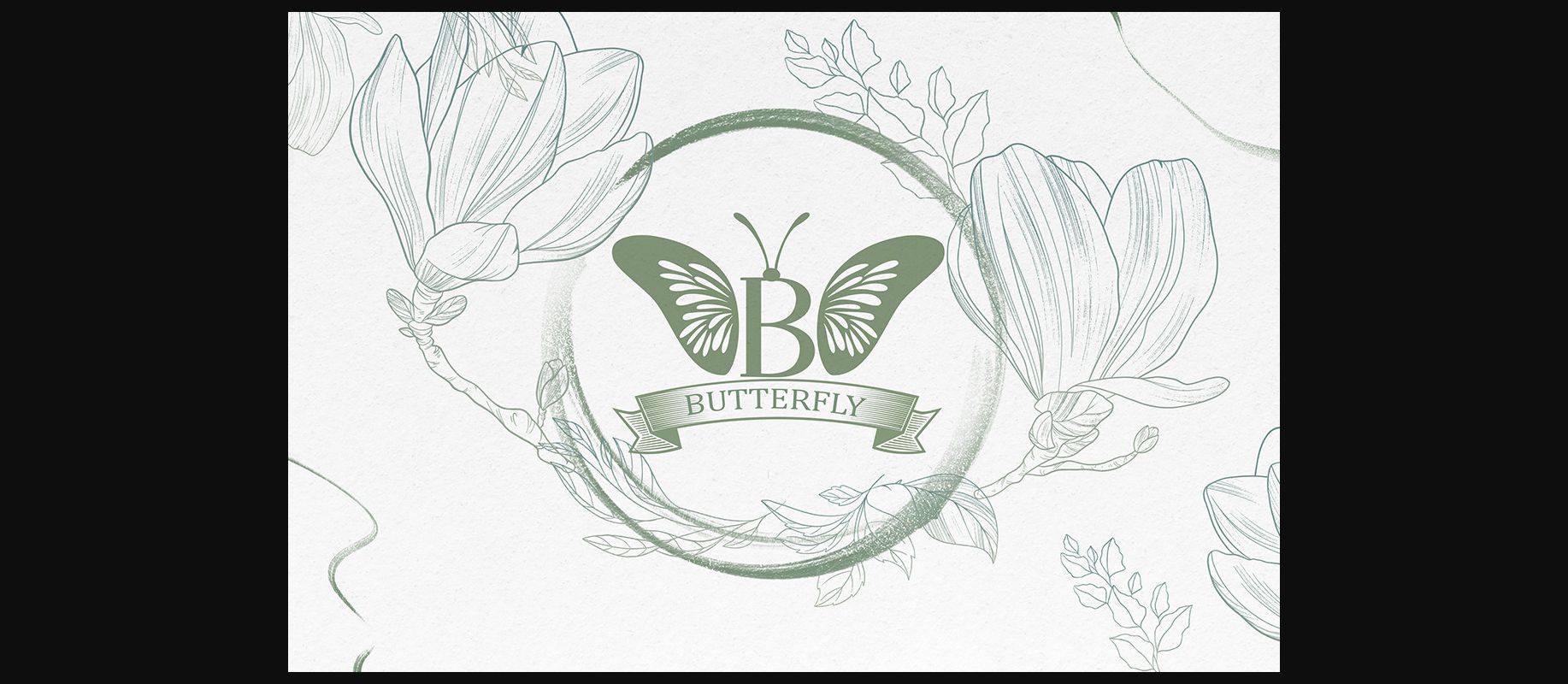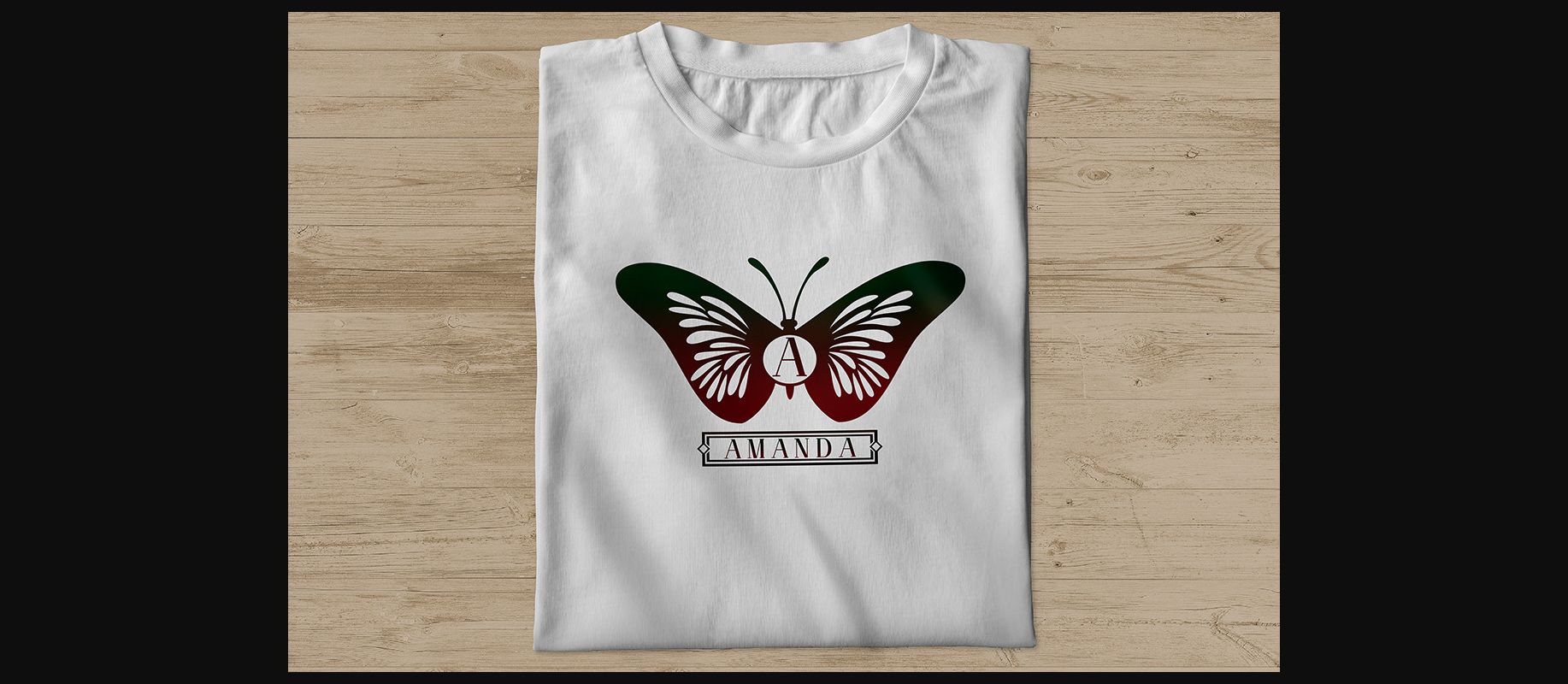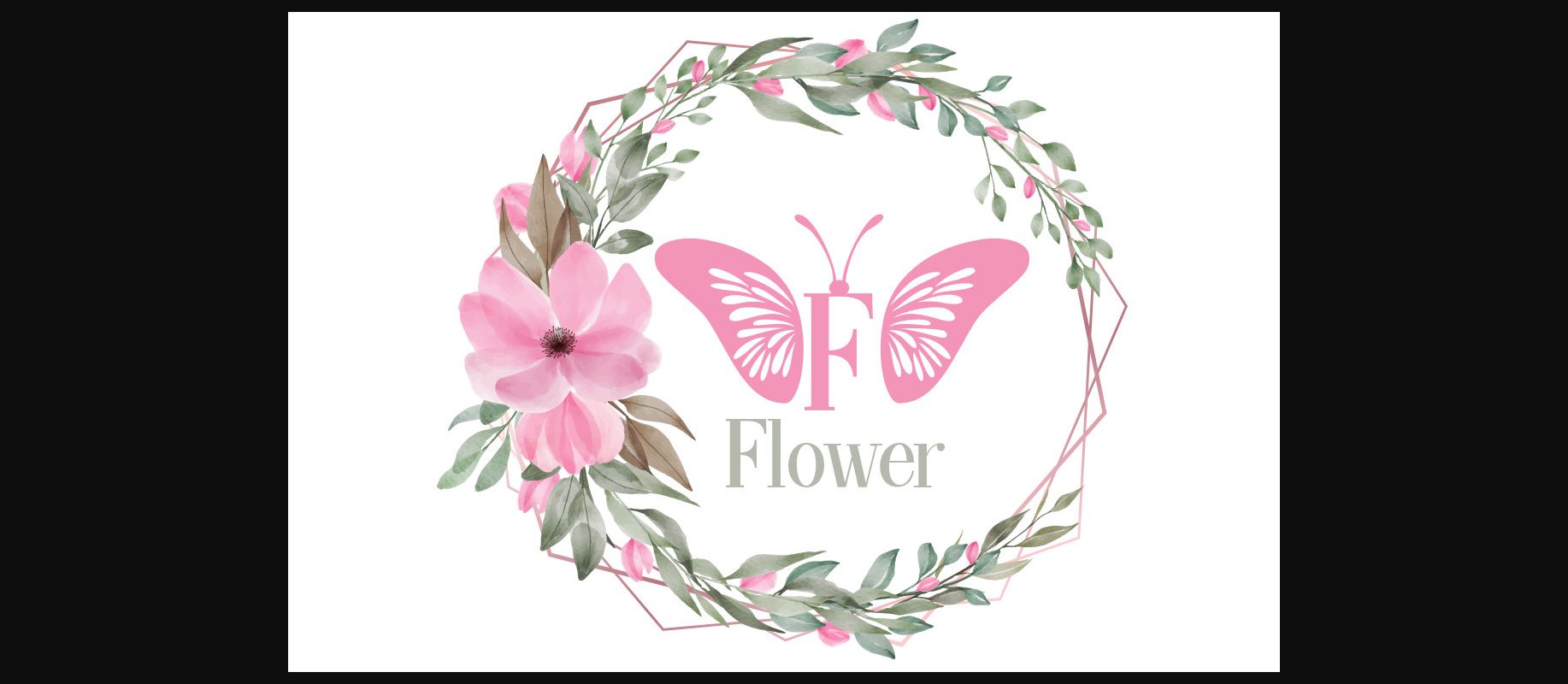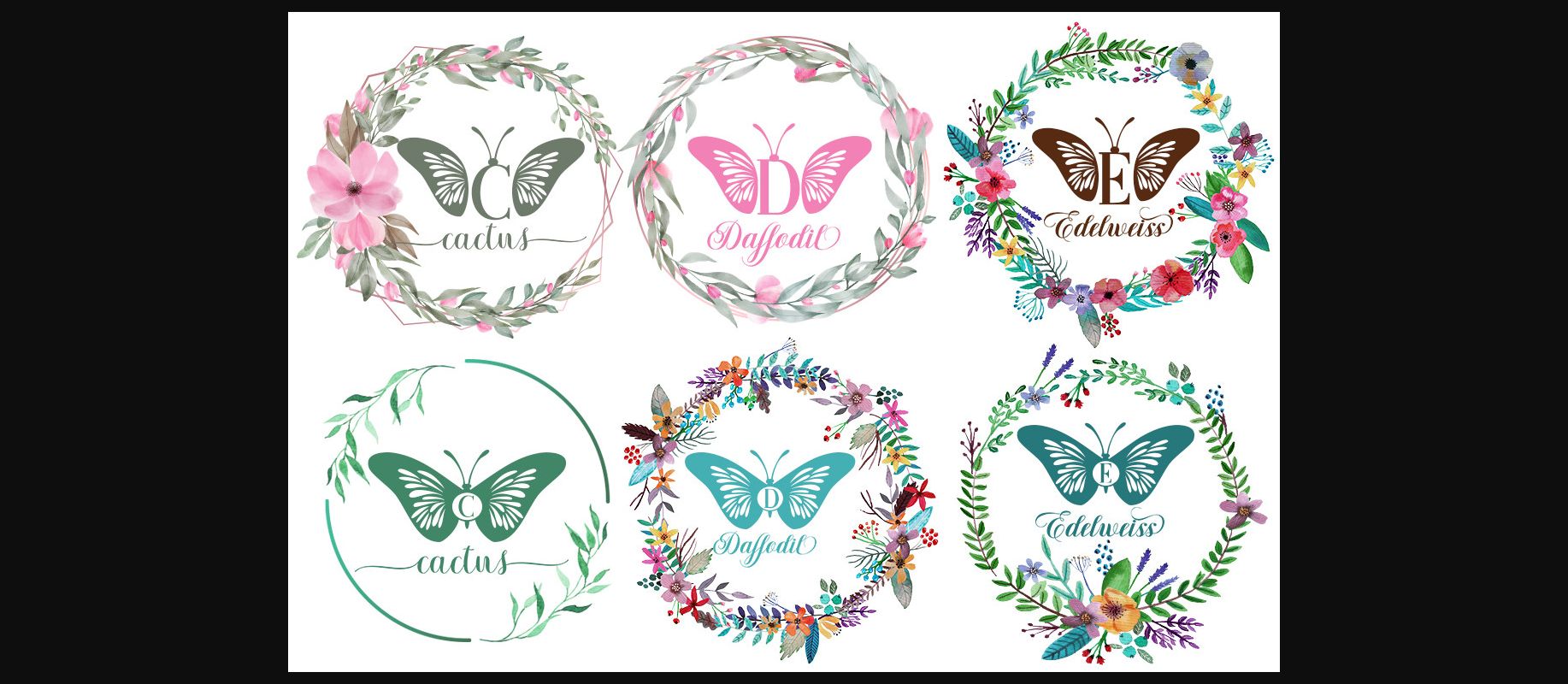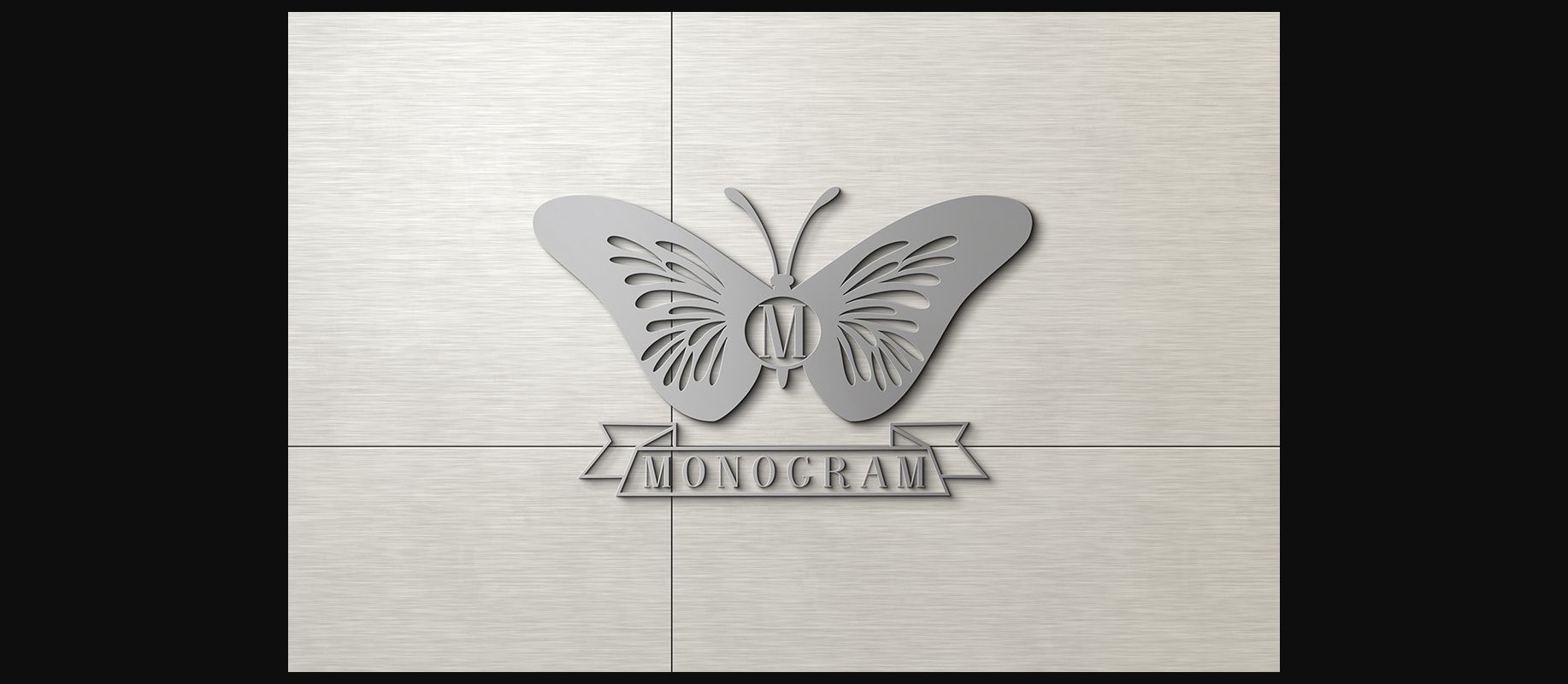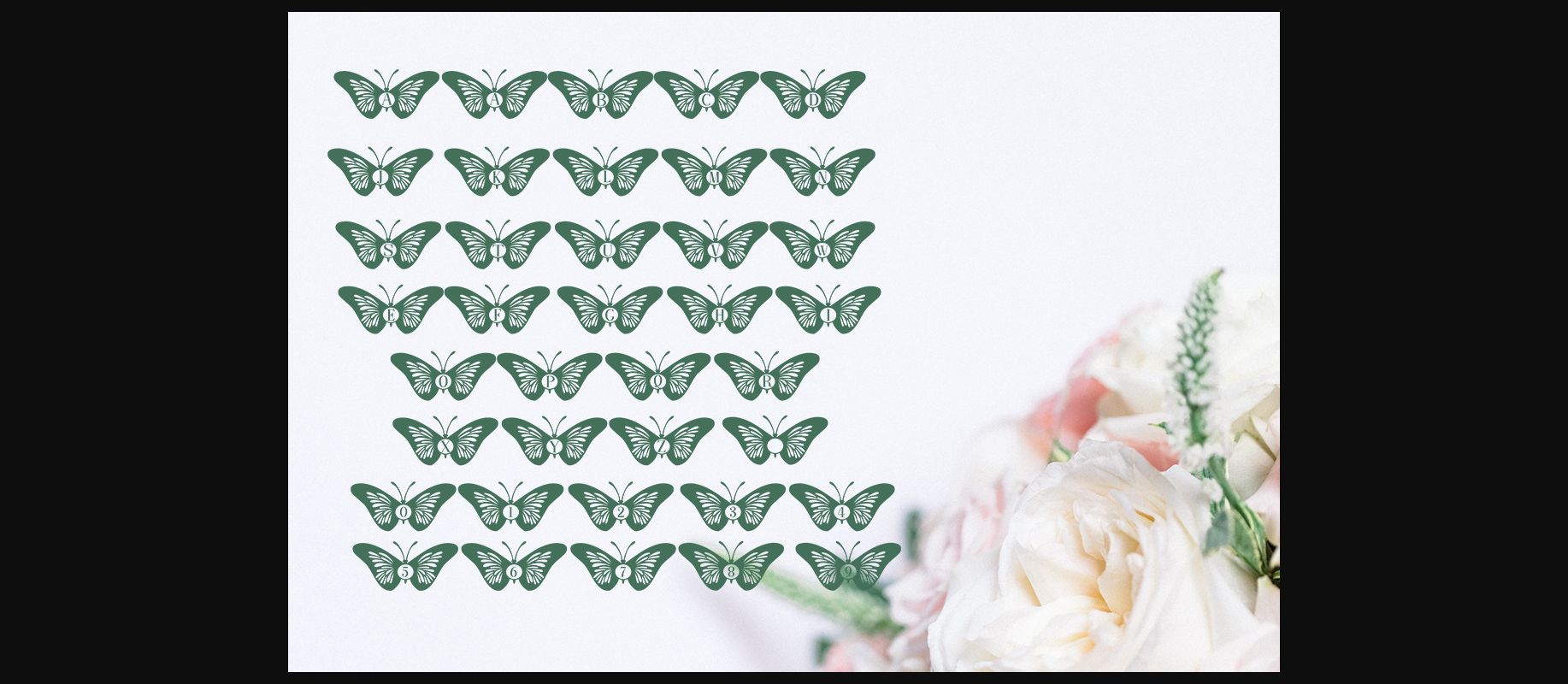
Butterfly Monogram Font
About Butterfly Monogram Font
Butterfly Monogram is a lovely and genuine decorative font. Expertly designed to make your creation look out of this world, this font will look gorgeous on a variety of ideas.